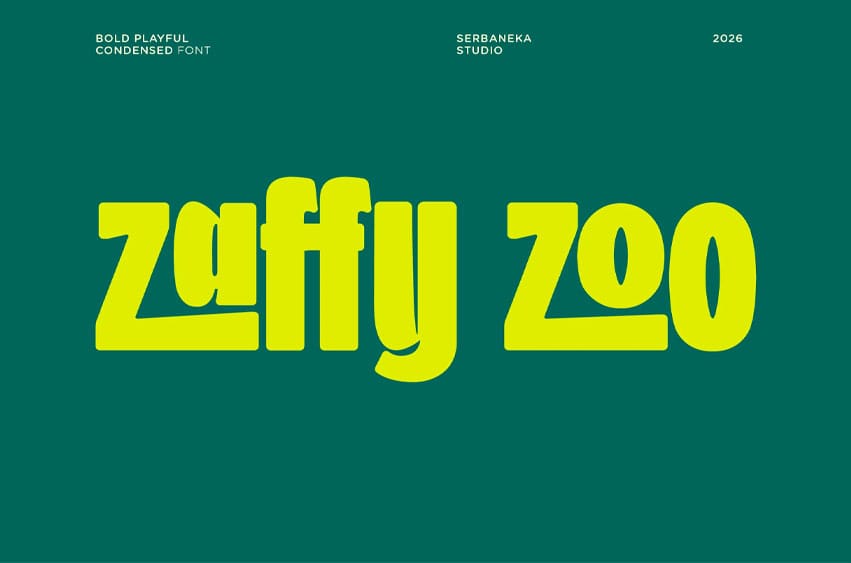
Zaffy Zoo Font is a bold and playful condensed display font designed especially for kids, education, and fun creative projects. With its chunky shapes, rounded edges, and compact letterforms, this font delivers a strong visual impact while staying friendly and easy to read.
Inspired by playful zoo themes and cheerful children’s illustrations, Zaffy Zoo brings energy, fun, and personality into every design. Its condensed structure makes it perfect for titles and headlines where space is limited but impact is essential.
This font is ideal for children’s books, school materials, educational content, kids branding, cartoon designs, and playful packaging. Whether you’re designing posters, worksheets, apps, or storybooks, Zaffy Zoo helps create a joyful and engaging experience for young audiences.
Perfect for designers, educators, and brands targeting kids, this font combines readability with a fun and modern style that stands out.
Font Features
- Uppercase & Lowercase Letters
- Bold Condensed Style
- Playful Rounded Characters
- Kid-Friendly Readability